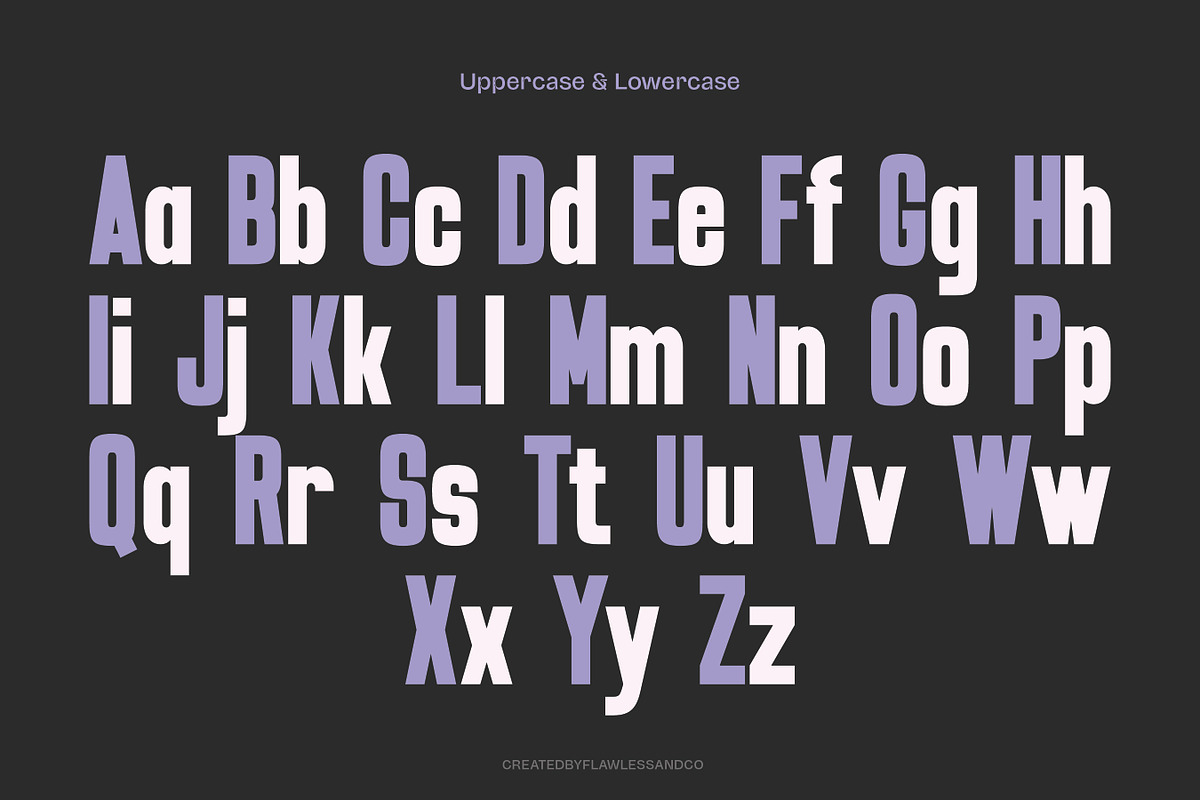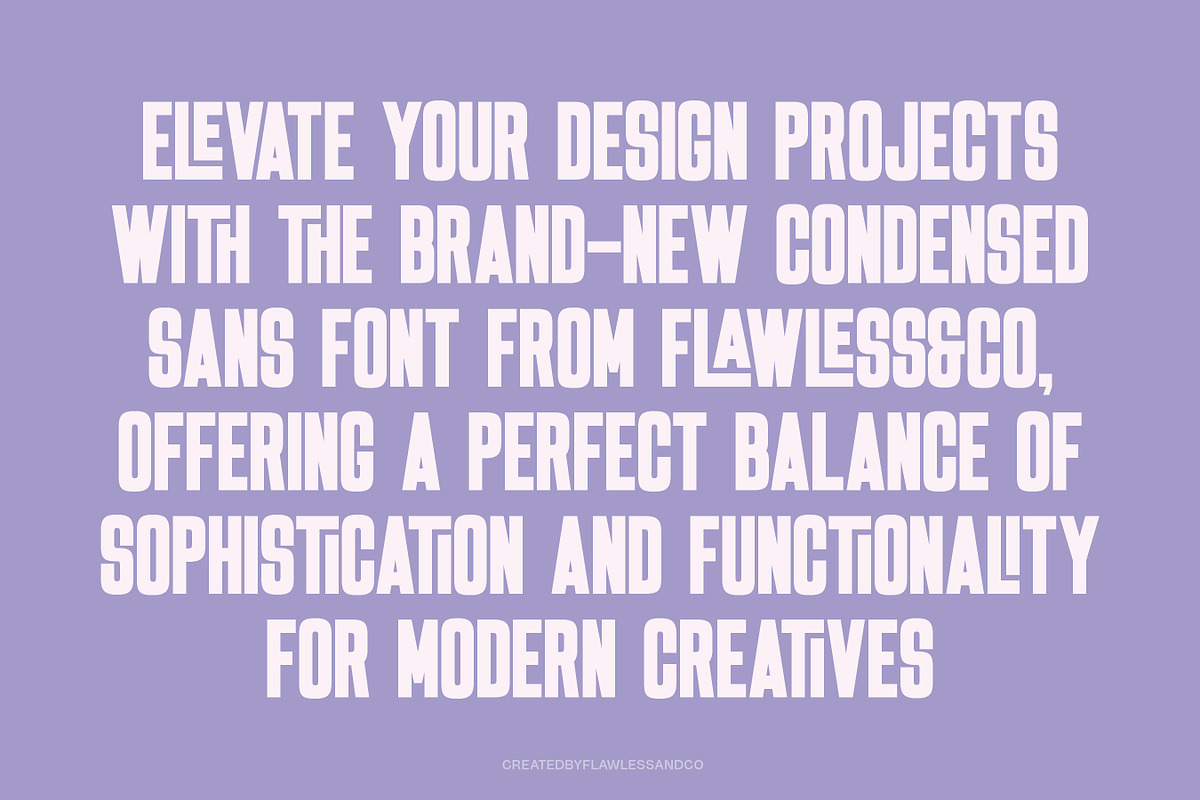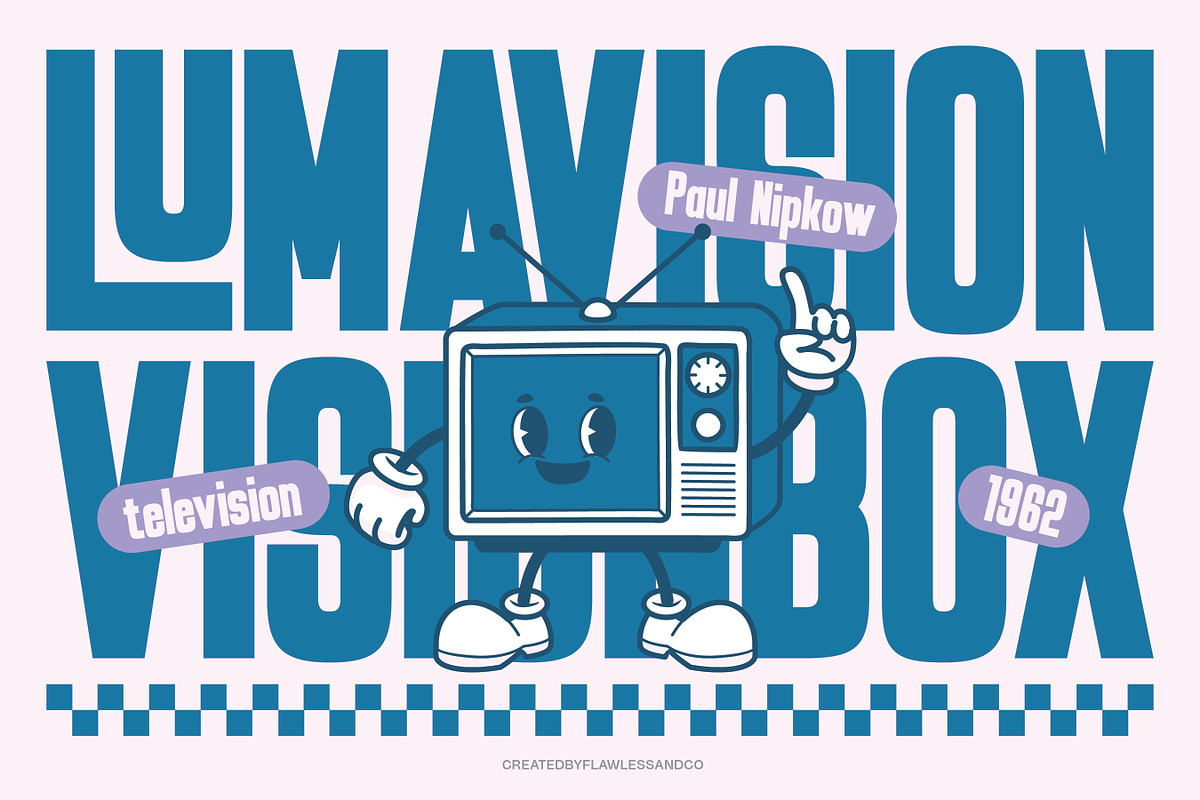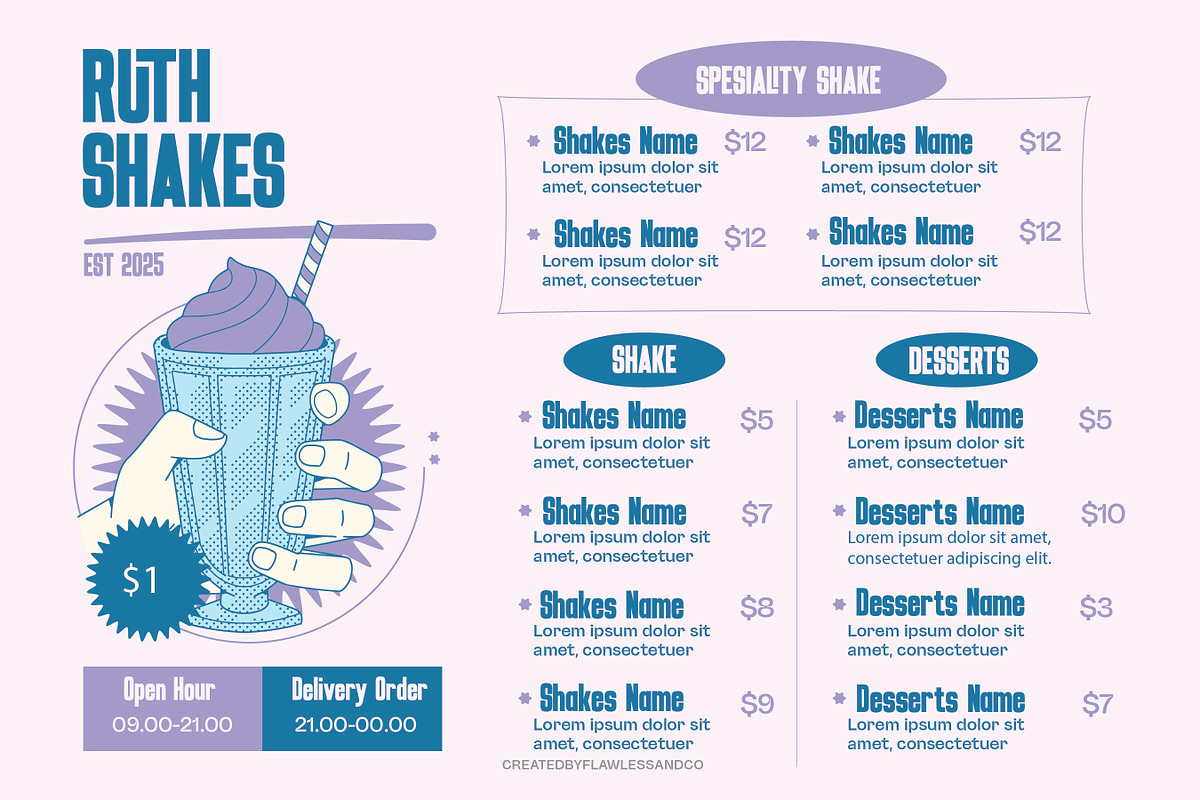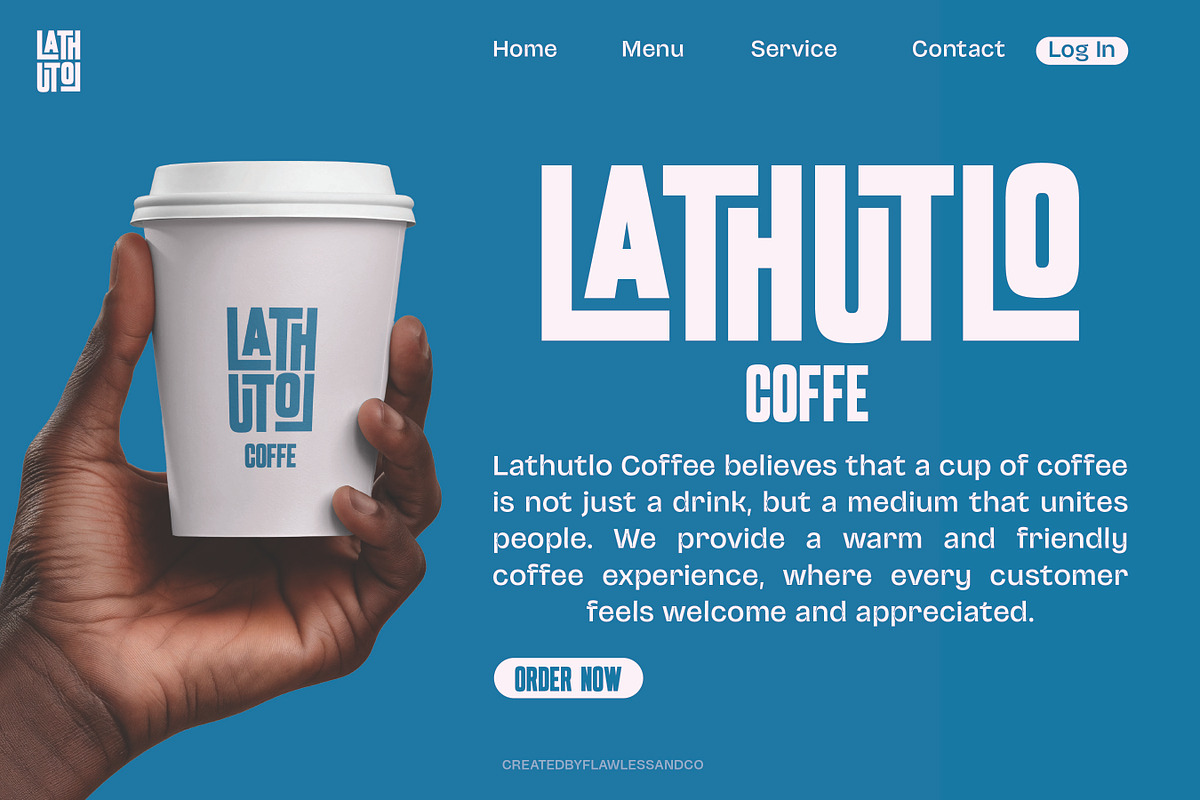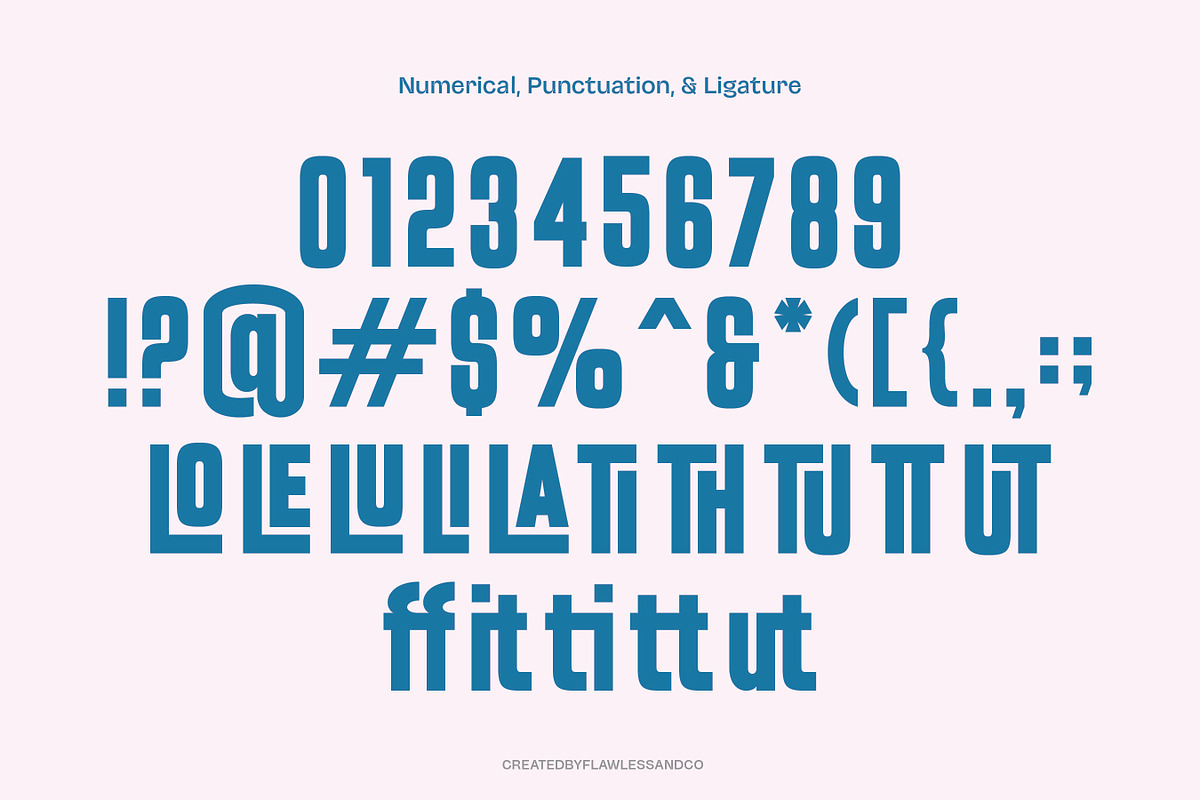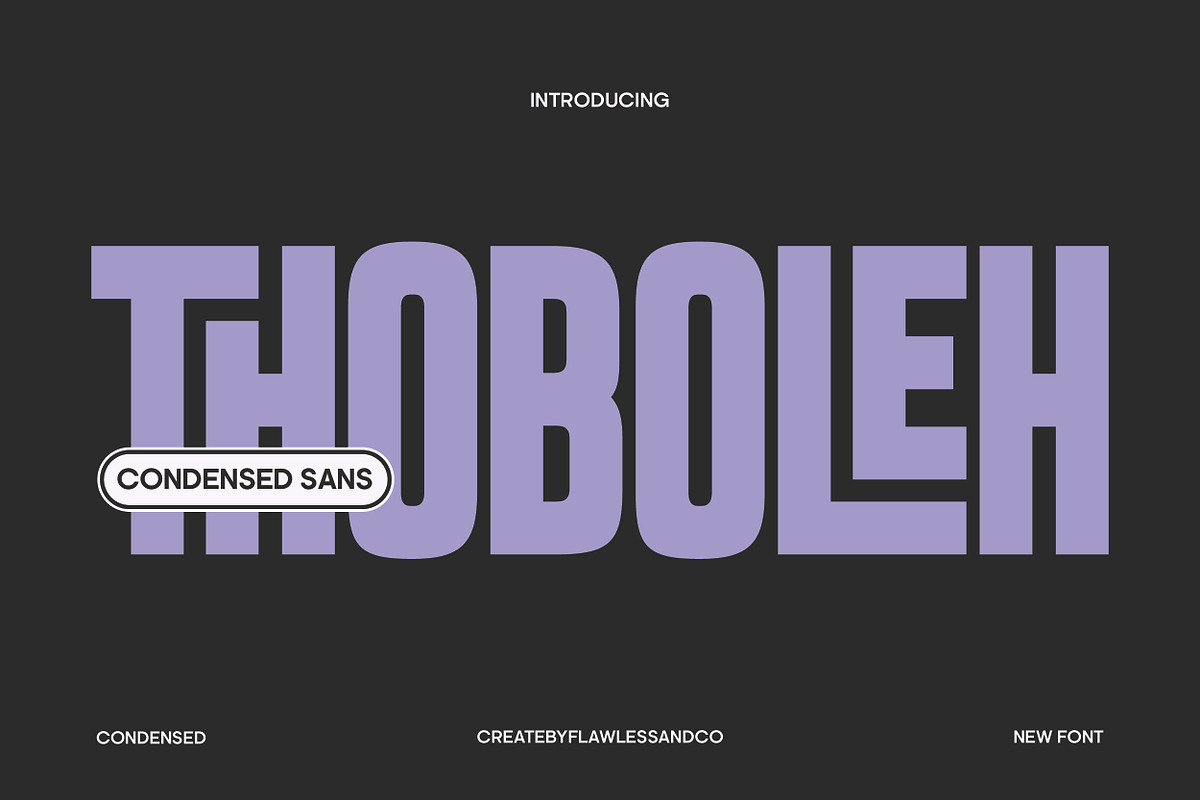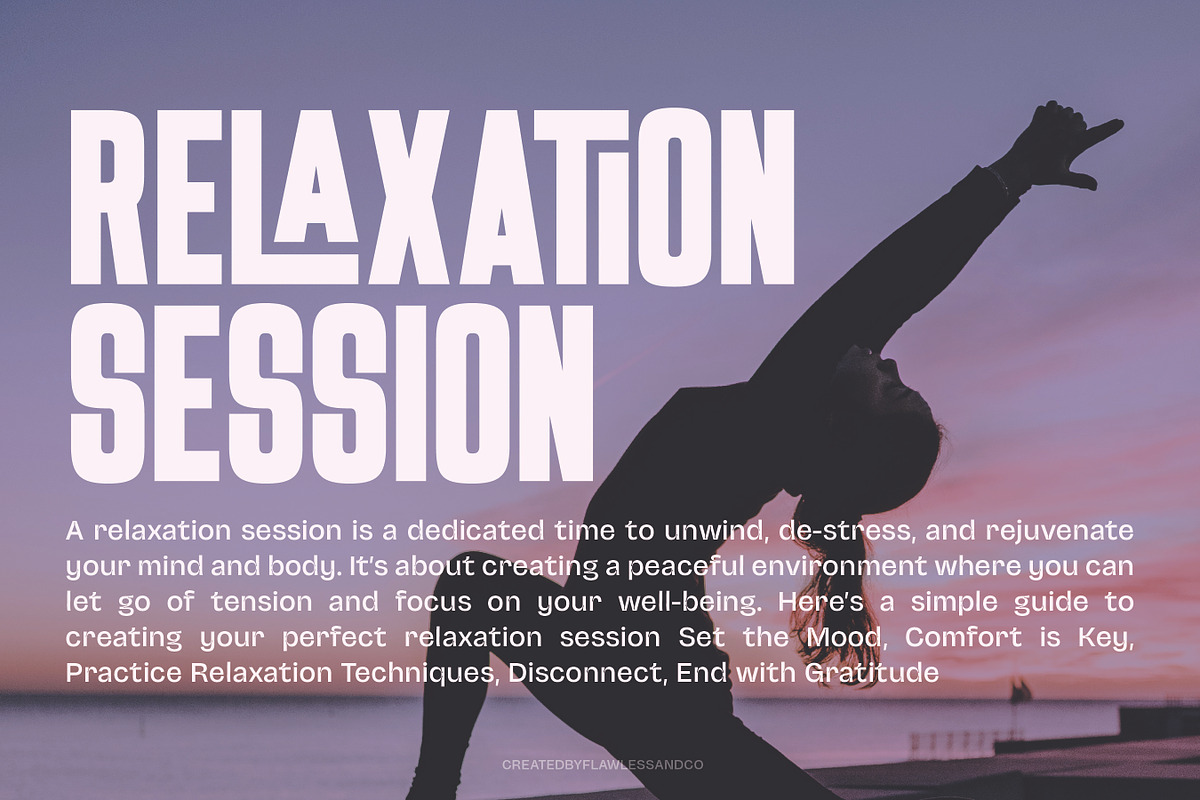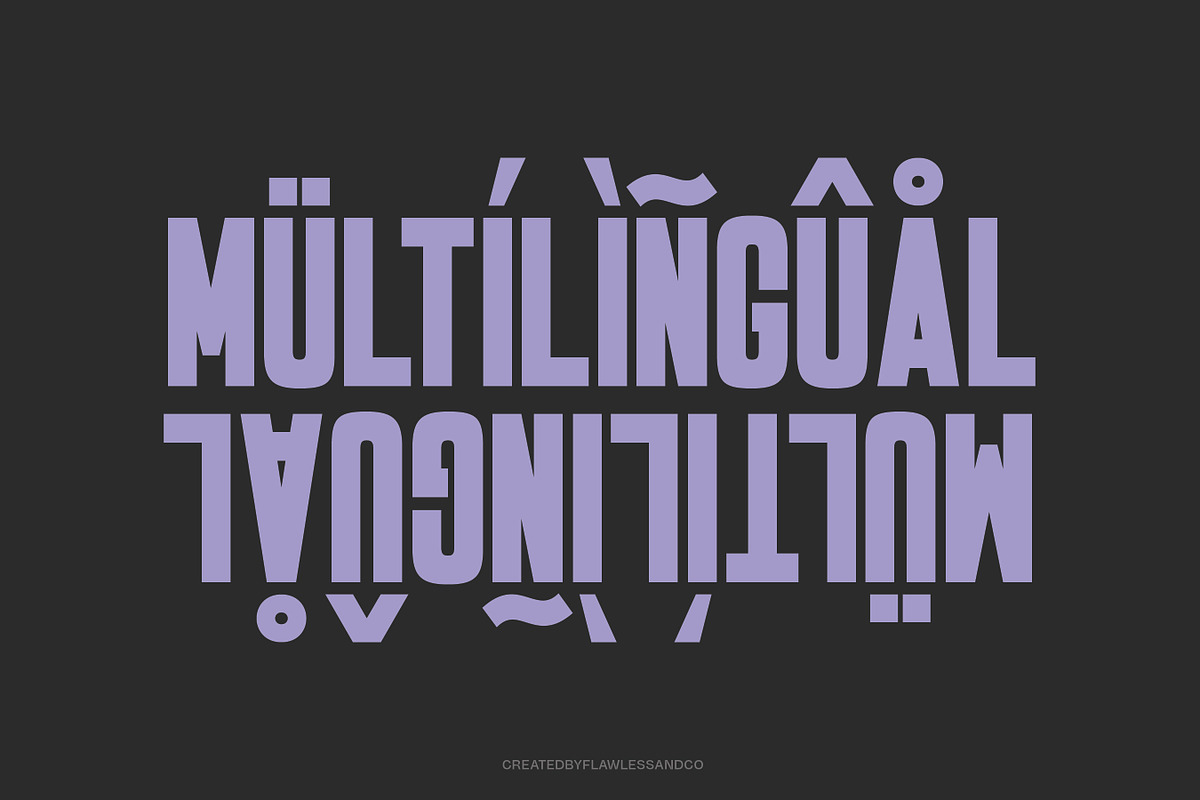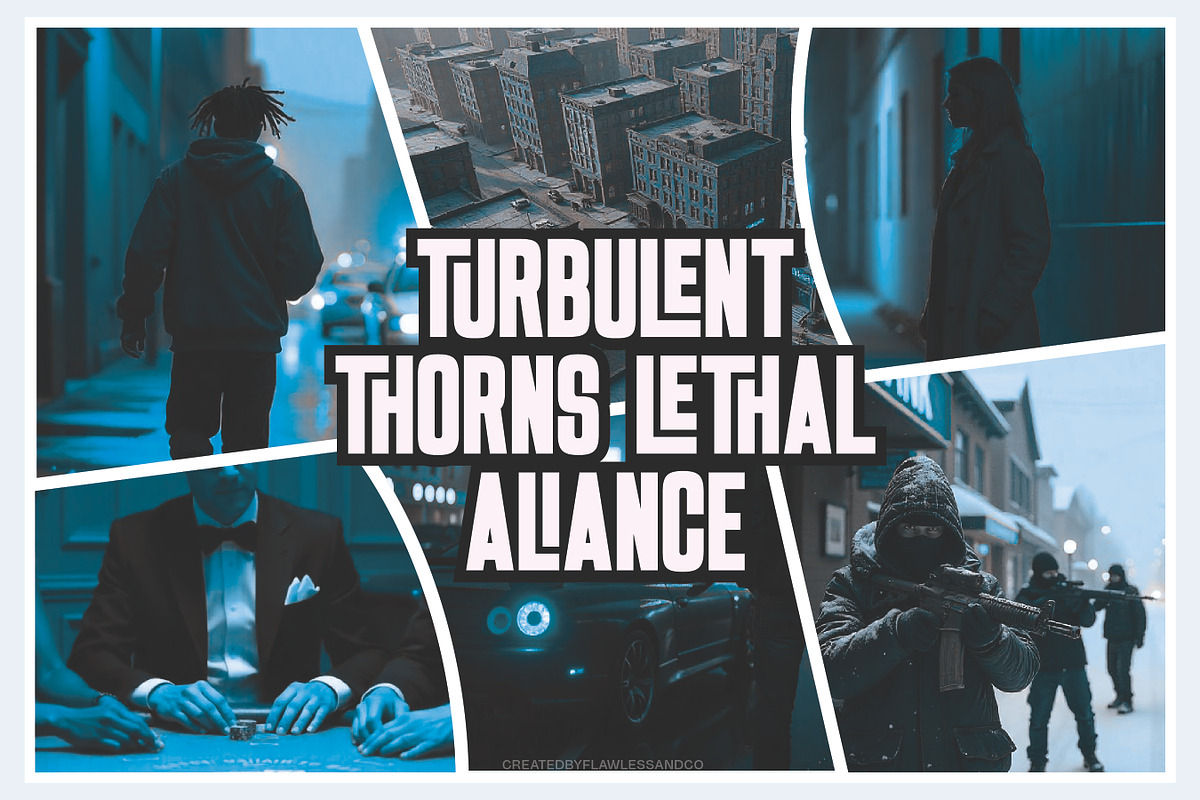
Thoboleh - Condensed Sans Serif
Thoboleh —Condensed Sans Serif Font Thoboleh is a bold and condensed sans serif font that brings a burst of personality to your design projects. With its chubby curves, quirky letterforms, and fun-loving energy, Thoboleh is perfect for creatives who want to add a touch of humor and boldness to their work. Whether you're crafting a vibrant poster, a whimsical logo, product packaging, or social media content, Thoboleh is here to make your message stand out in the most delightful way.
- Perfect for kids' projects, comics, branding, and more!
Let Thoboleh add charm, joy, and character to your next creative adventure.
Who Should Use condensed sans serif font thoboleh? Thoboleh is perfect for anyone who wants to stand out with a bold, condensed sans serif font that feels compact, strong, and playful. With its solid letterforms and confident personality, Thoboleh is ready to take the spotlight in a variety of creative projects, such as:
- Graphic designers who need a statement font for posters, covers, or bold branding.
- Local brands or small businesses looking for a modern, space-efficient typeface.
- Content creators who love bold, eye-catching typography for social media posts.
- Packaging designers who need strong yet compact letters for tight layouts.
- Any creative project that calls for a fun, urban, and confidently unique vibe.
Thoboleh is your go-to choice when you need something bold, condensed, and unapologetically different.
A Must-Have Font for Brand and Logo Creators and Designers Thoboleh isn’t just a font — it’s a bold visual signature. Built for designers and creators who want a distinctive, compact look, this condensed sans serif adds instant impact to any logo or branding project. Its tight spacing and geometric form allow it to fit effortlessly into modern layouts without sacrificing character. Whether you're crafting edgy brand identities, urban packaging, or standout logos, Thoboleh gives you the versatility and strength to make a bold design statement every time.
Why Choose Thoboleh Brand and Logo Project? Because your brand deserves a typeface that’s bold, compact, and full of character. Thoboleh offers a clean, condensed structure that’s perfect for logos and branding systems that demand high impact with limited space. Its strong visual rhythm and contemporary sans serif feel make it a smart choice for modern identities that need to stand out. Whether you’re designing for fashion, tech, urban labels, or minimalist packaging, Thoboleh helps you communicate clarity, style, and a confident presence across every touchpoint.